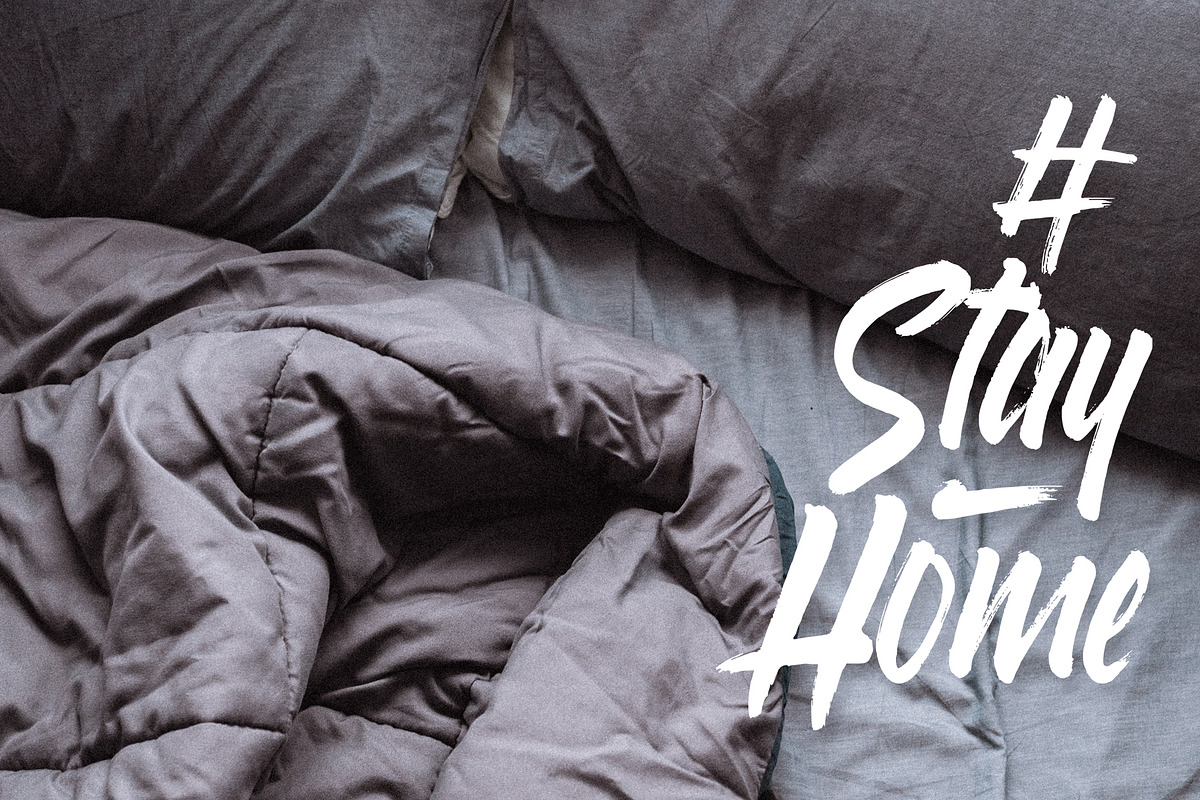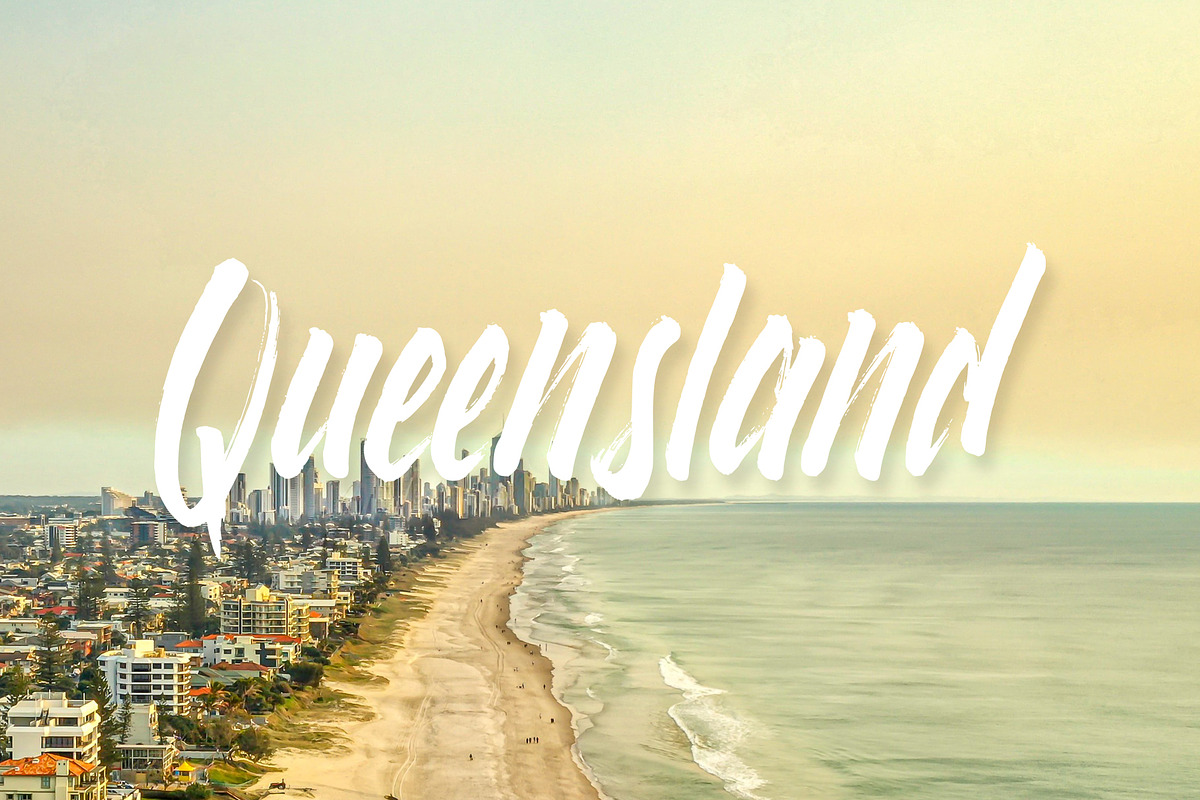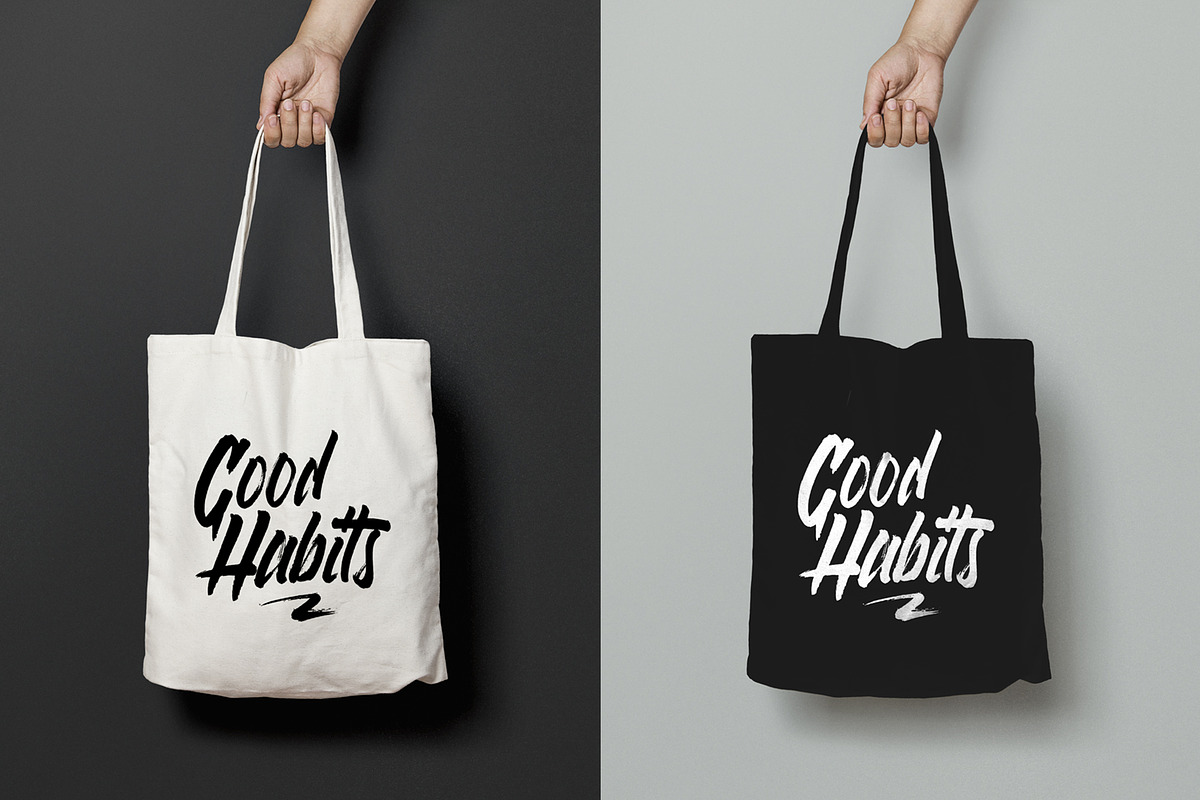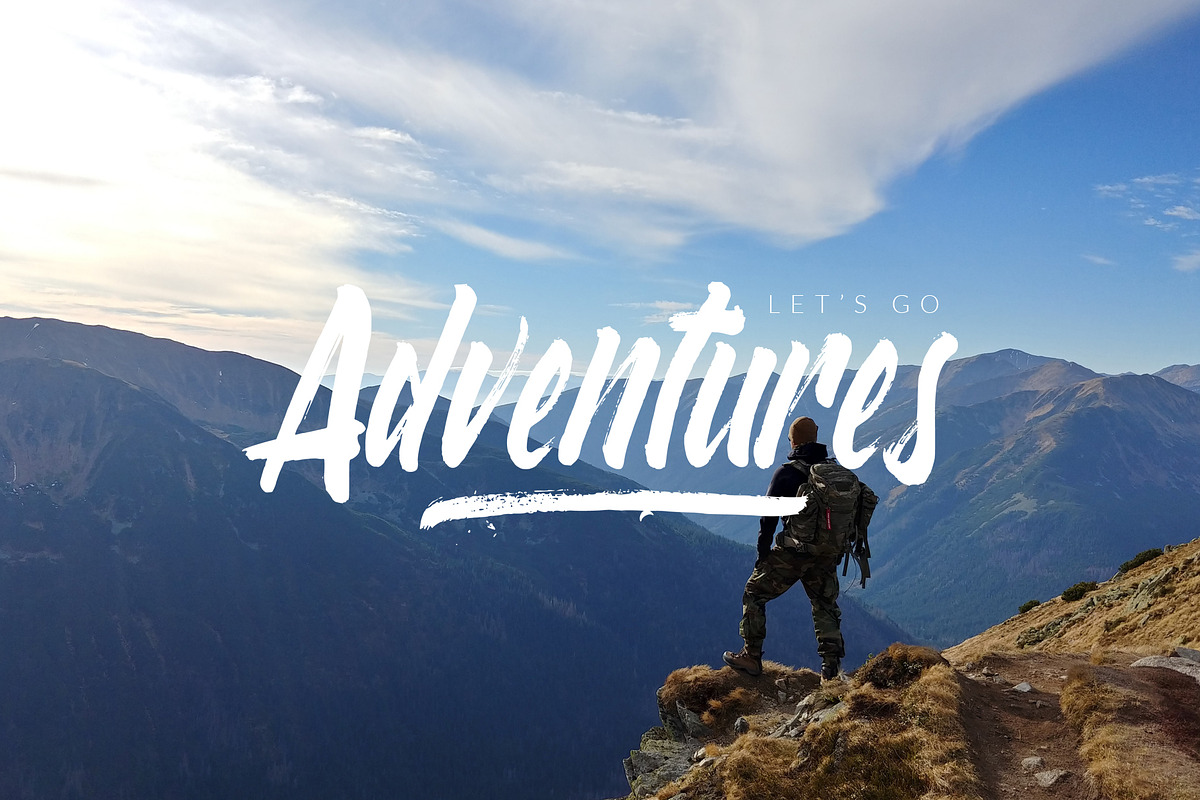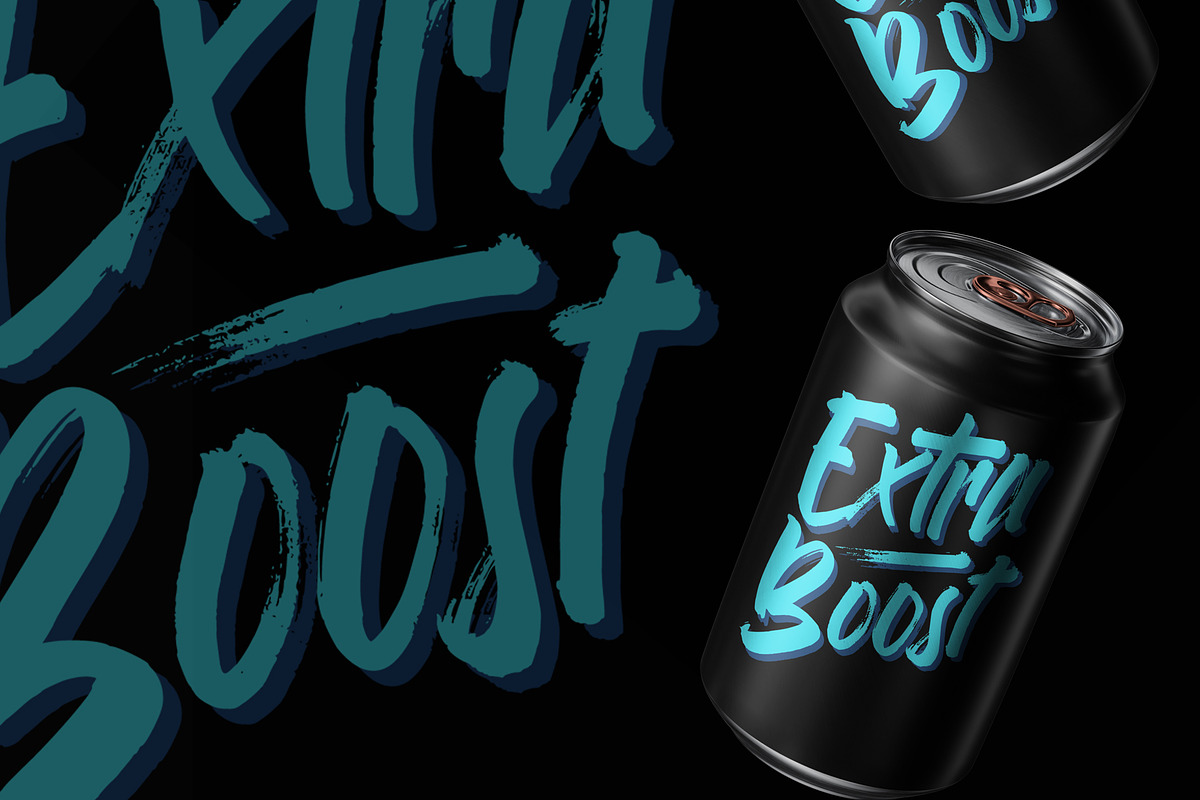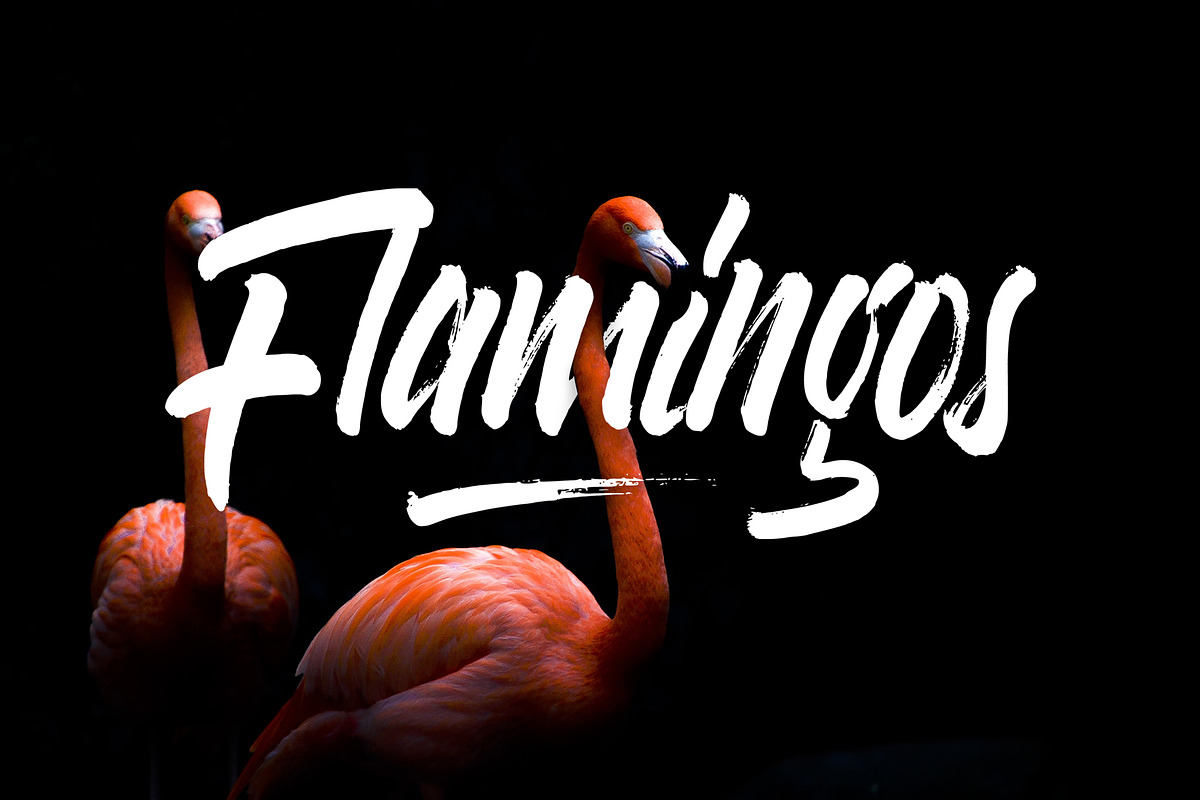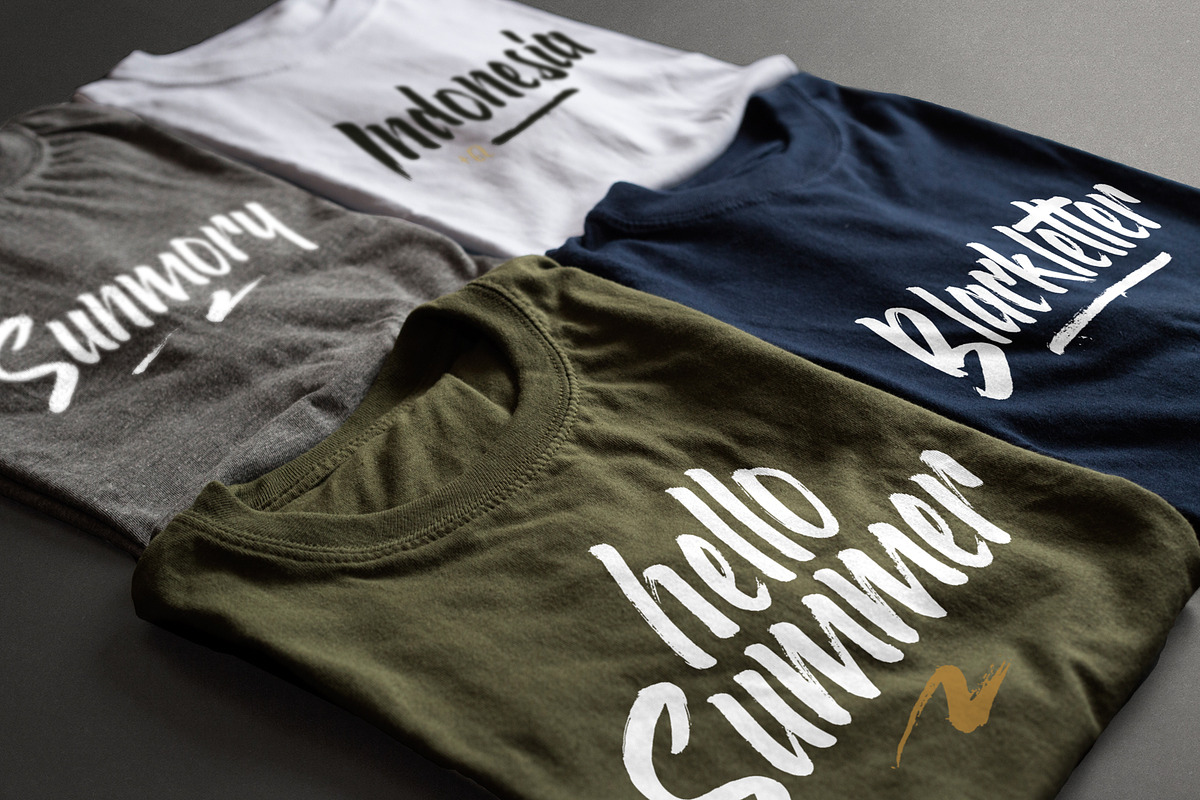
Varokah Fonts
Varokah is Hand drawn script fonts, Very suitable for: branding needs, ads, t-shirt design, and for other print needs...
Varokah Includes full set of elegant uppercase, lowercase letters, numbers, punctuation, multilingual language, and various ligatures. And make your design looks bold!!!
- Varokah Includes full set of elegant uppercase, lowercase letters, numbers, punctuation, multilingual language, and various ligatures.
Varokah Fonts by SemutHitam Creative fits naturally into Branding, posters, packaging, typography.